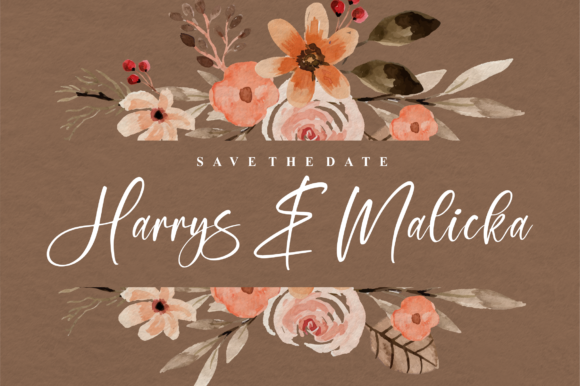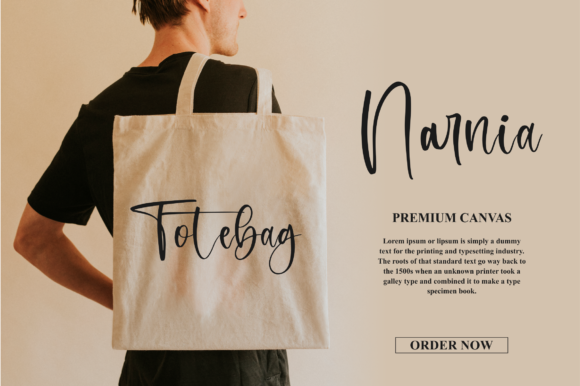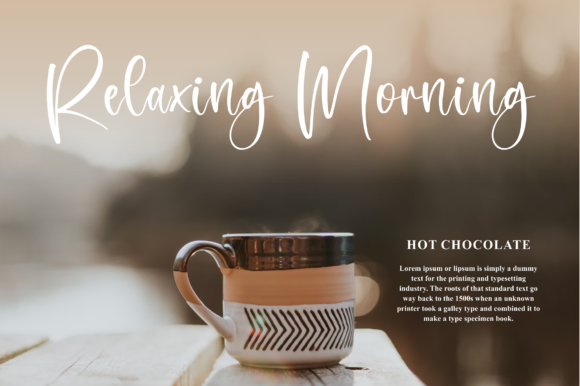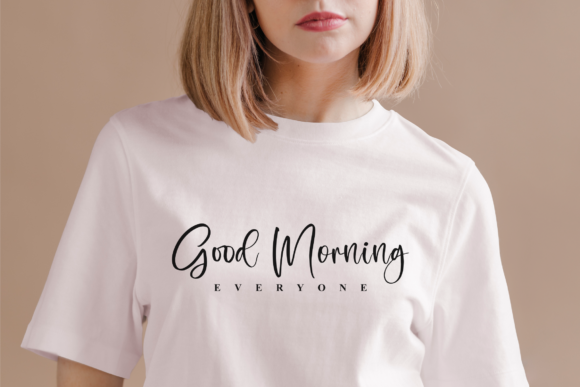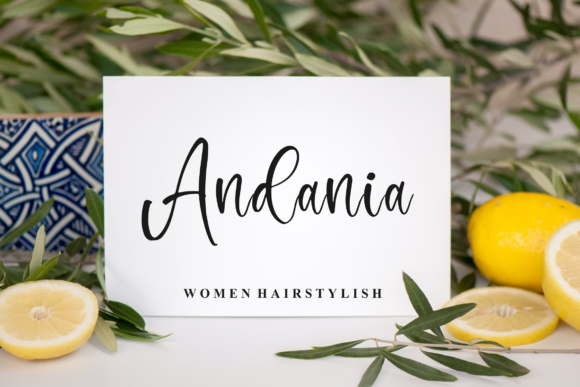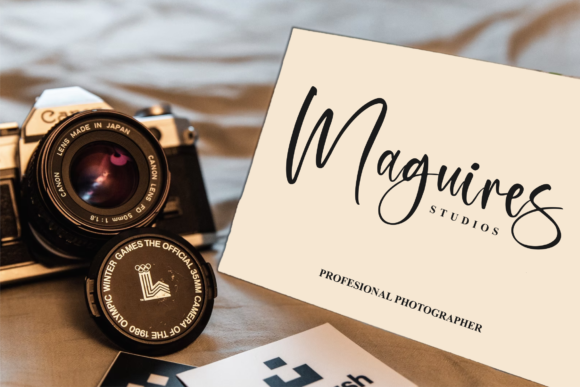
Introduction to Ronatesla Sintera Font
Have you ever stared at a blank canvas, feeling the creative juices flow as you contemplate the perfect typography for your next project? For designers, this moment is a thrill – a chance to bring an idea to life with the perfect design resource. And for those seeking that special something, the Ronatesla Sintera Font is about to become your new best friend.
This elegant, flowing handwritten font is the perfect addition to any high-quality creative project, with its unique, cursive touch adding a personal and sophisticated feel to your work. Whether you’re designing a logo, crafting a beautiful invitation, or creating a stunning visual for a social media post, Ronatesla Sintera Font is sure to elevate your design to the next level.
With its transparent background and PUA encoded glyphs, this versatile font offers endless possibilities for customization and creativity. And the best part? You can access all of its features with ease, making it an invaluable resource for any designer looking to add a touch of sophistication to their work.
Key Features of Ronatesla Sintera Font
- High-quality design for creative projects, ideal for modern and minimalist designs
- Unique characteristics include a clean and elegant aesthetic, making it suitable for various design projects
Honest Review: Ronatesla Sintera Font
I recently stumbled upon the Ronatesla Sintera Font, and I’m excited to share my thoughts on this design resource. The first thing that caught my attention was its sleek and modern aesthetic, making it perfect for high-quality, creative projects.
One of the standout features of this font is its transparent background, which allows for seamless integration with various design elements. The font itself is highly customizable, with a wide range of styles and sizes to choose from. ✨
Here are some of the key features that make Ronatesla Sintera Font a valuable design resource:
- High-quality, scalable design
- Wide range of styles and sizes
While Ronatesla Sintera Font is a great addition to any designer’s toolkit, there are a few limitations to consider: ⚠️
- May not be suitable for projects requiring a more traditional or formal tone
- Some users may find the font’s modern aesthetic too trendy
Overall, I’m impressed with Ronatesla Sintera Font, and I think it’s a valuable resource for designers working on creative projects. With its high-quality design and transparent background, it’s a great choice for designers looking to add a modern touch to their work.
Tips for Getting the Most Out of Ronatesla Sintera Font
To get the most out of the Ronatesla Sintera Font, use it in conjunction with other design elements that complement its style. Experiment with different font sizes, colors, and combinations to achieve a unique look.
Common Use Cases for Ronatesla Sintera Font
This font is commonly used in creative projects such as branding, marketing materials, and digital graphics. Its versatility and high quality make it an ideal choice for a wide range of design applications.